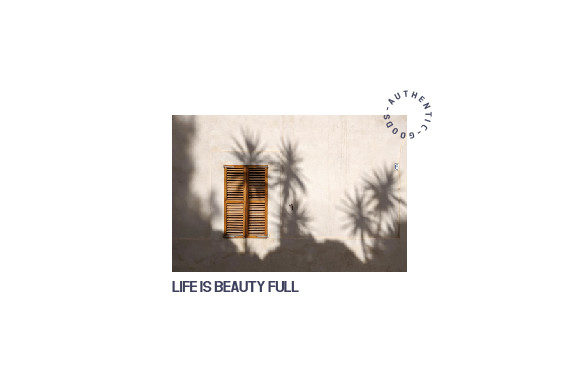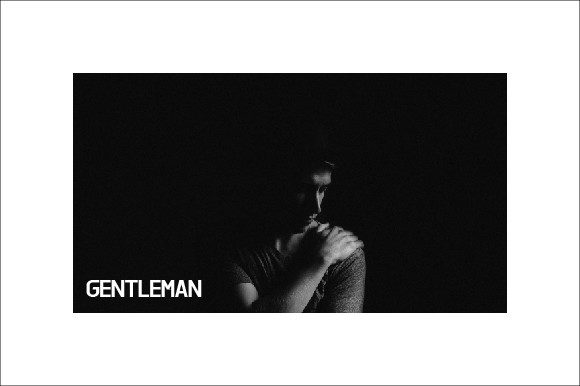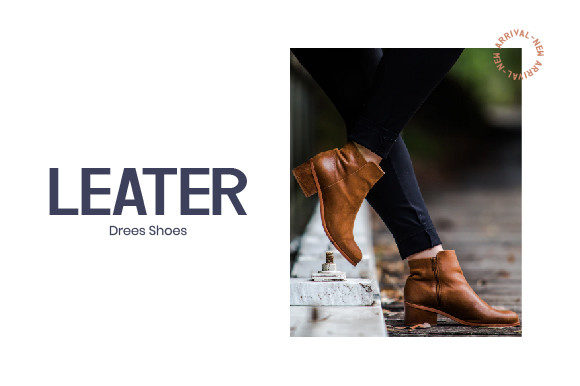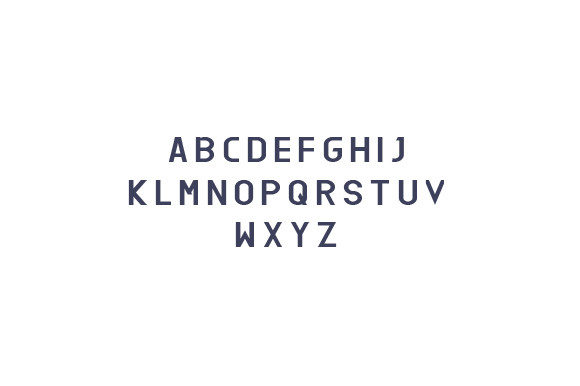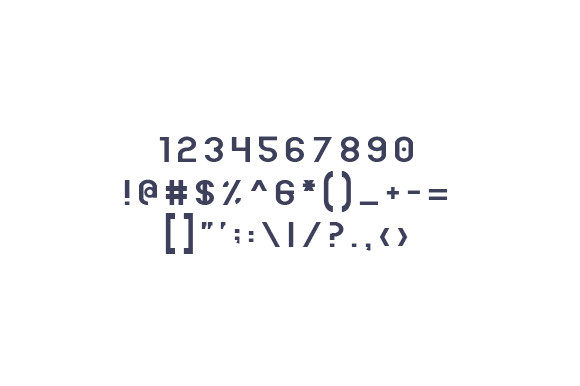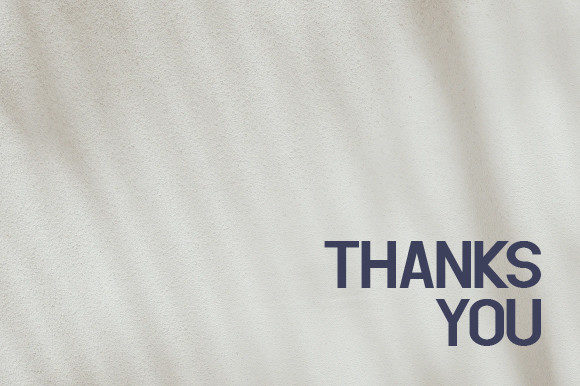
Begal Font: The Ultimate Cool All-Caps Display Font for Designers and Crafters
In the world of typography, fonts play a crucial role in conveying the tone and personality of a design. When it comes to creating visually appealing and trendy designs, the right font can make all the difference. This is where Begal Font comes in – a cool all-caps display font that has been making waves in the design community. In this article, we’ll dive into the features and benefits of Begal Font, and explore how it can elevate your designs, whether you’re a seasoned designer or a crafty DIY enthusiast.
What is Begal Font?
Begal Font is a stylish all-caps display font that boasts the perfect amount of trendiness. Its unique design makes it an excellent choice for a wide range of applications, from digital designing and presentations to crafting and greeting card making. With Begal Font, you can add a touch of sophistication and elegance to your designs, making them stand out from the crowd.
Key Features of Begal Font
- All-Caps Design: Begal Font features an all-caps design, making it perfect for headlines, titles, and emphasis text.
- Trendy and Modern: The font’s trendy and modern design ensures that your designs look fresh and up-to-date.
- Versatile: Begal Font can be used for a wide range of applications, including digital designing, presentations, crafting, and greeting card making.
- Easily Readable: Despite its stylish design, Begal Font remains easily readable, making it perfect for both digital and print designs.
Benefits of Using Begal Font
So, why should you choose Begal Font for your designs? Here are just a few benefits of using this amazing font:
- Adds Visual Appeal: Begal Font adds a touch of visual appeal to your designs, making them more engaging and attention-grabbing.
- Enhances Creativity: With Begal Font, you can express your creativity and bring your ideas to life in a unique and stylish way.
- Saves Time: The font’s easily readable design saves you time and effort, as you don’t have to worry about adjusting font sizes or styles.
- Perfect for DIY Projects: Begal Font is perfect for DIY enthusiasts, as it can be used for a wide range of crafting and DIY projects, such as greeting cards, scrapbooking, and more.
How to Use Begal Font in Your Designs
Using Begal Font in your designs is easy and straightforward. Here are a few tips to get you started:
- Pair it with Other Fonts: Pair Begal Font with other fonts to create a unique and visually appealing design.
- Use it for Headlines and Titles: Use Begal Font for headlines and titles to add emphasis and create a lasting impression.
In conclusion, Begal Font is a cool all-caps display font that is perfect for designers and crafters looking to add a touch of trendiness to their designs. With its versatile design, easily readable text, and stylish aesthetic, Begal Font is an excellent choice for a wide range of applications. Whether you’re a seasoned designer or a DIY enthusiast, Begal Font is sure to elevate your designs and take them to the next level.